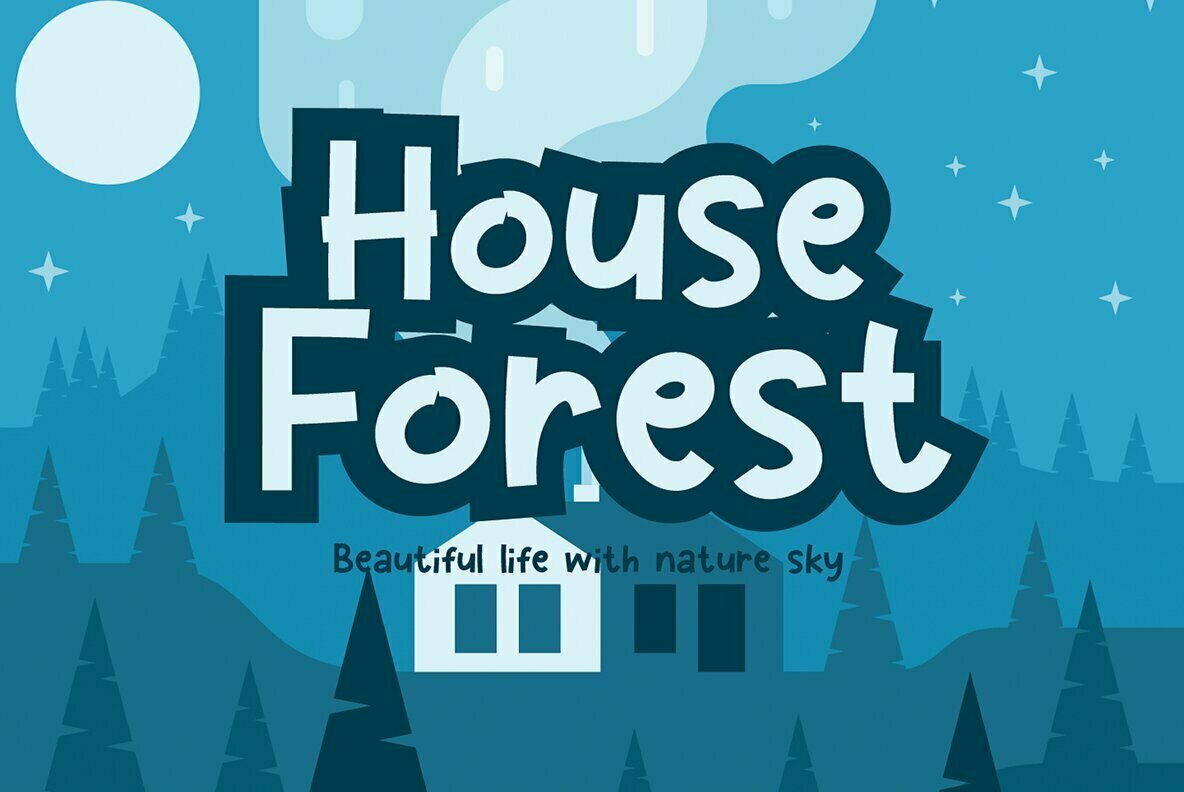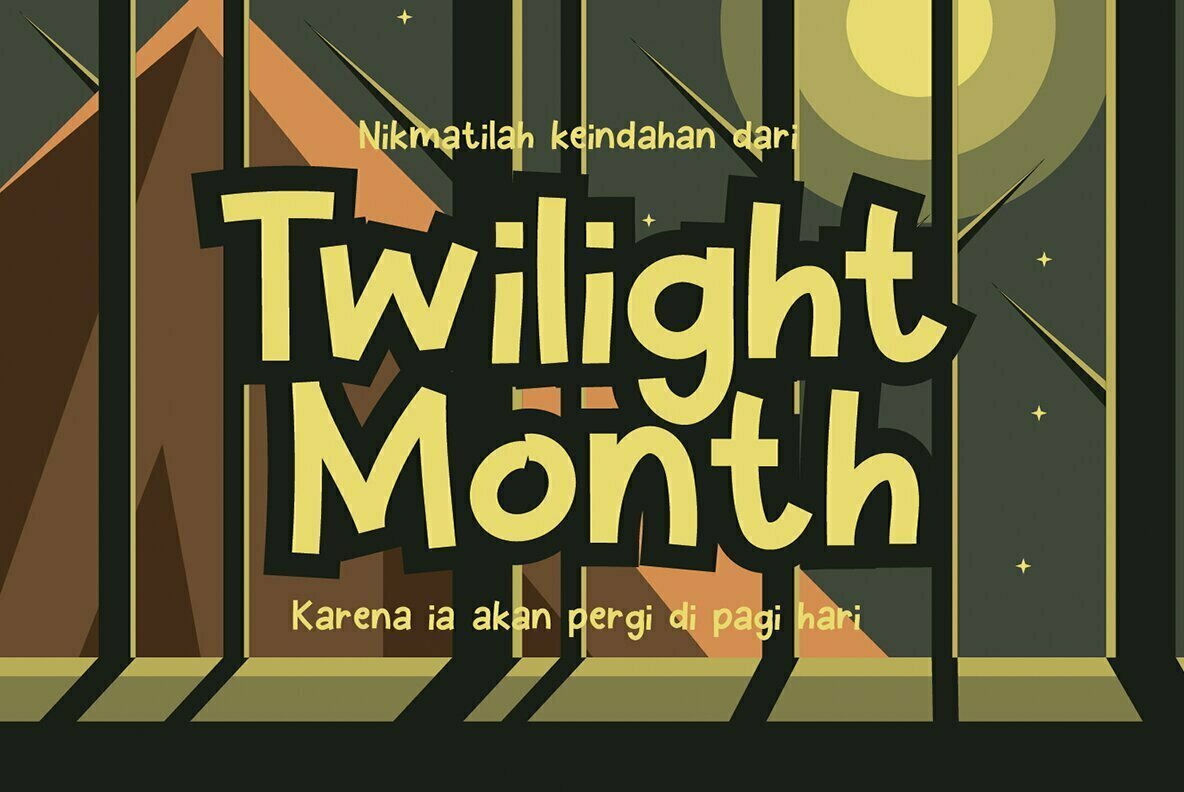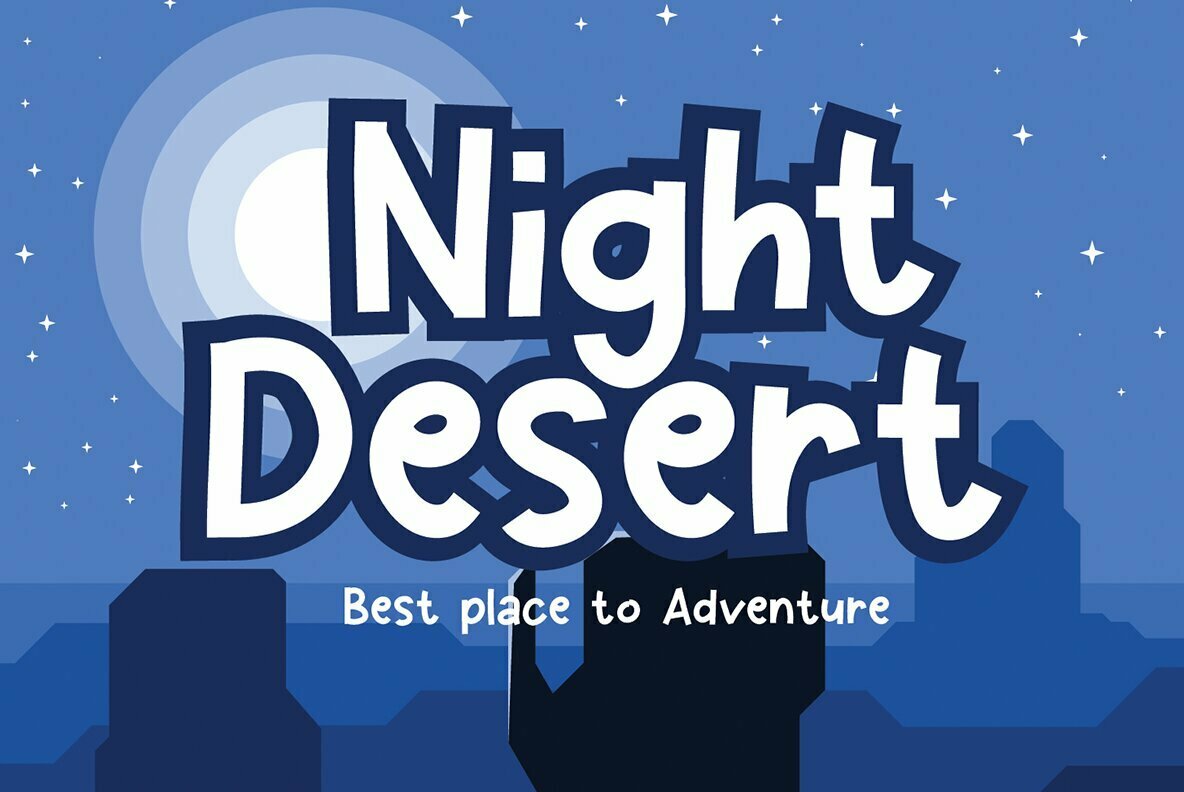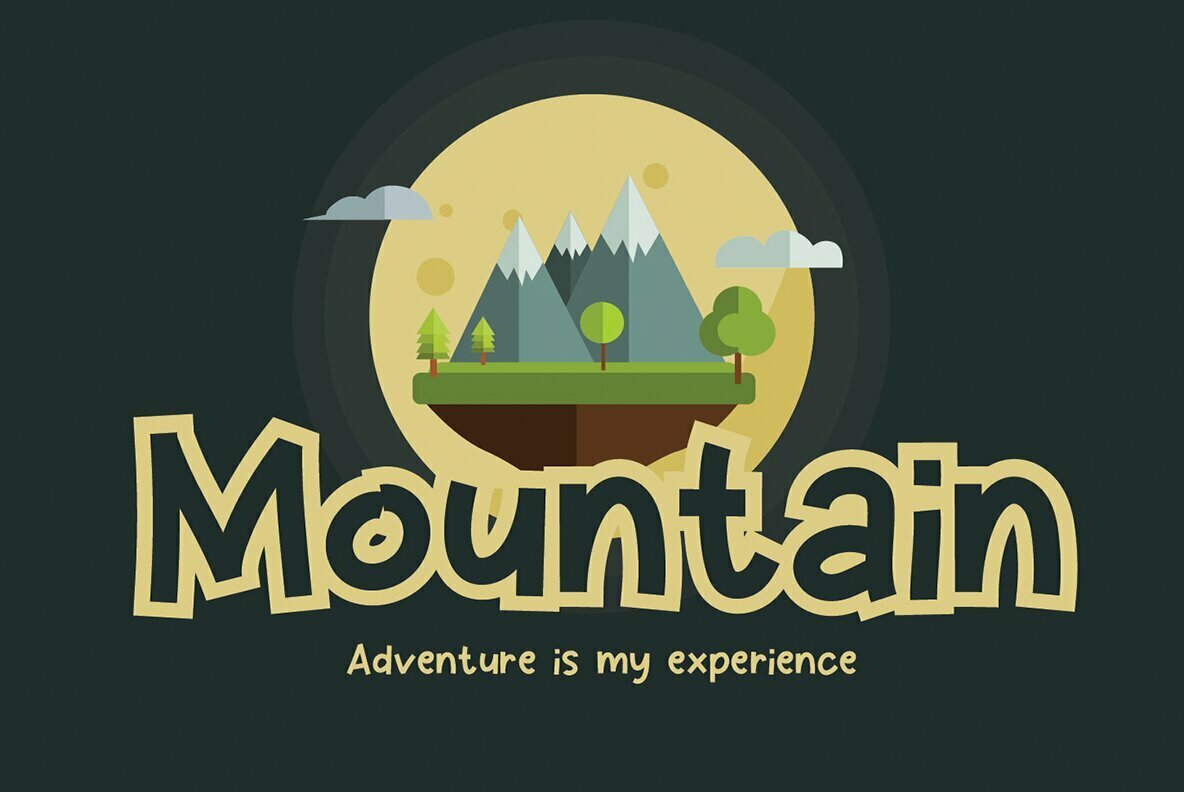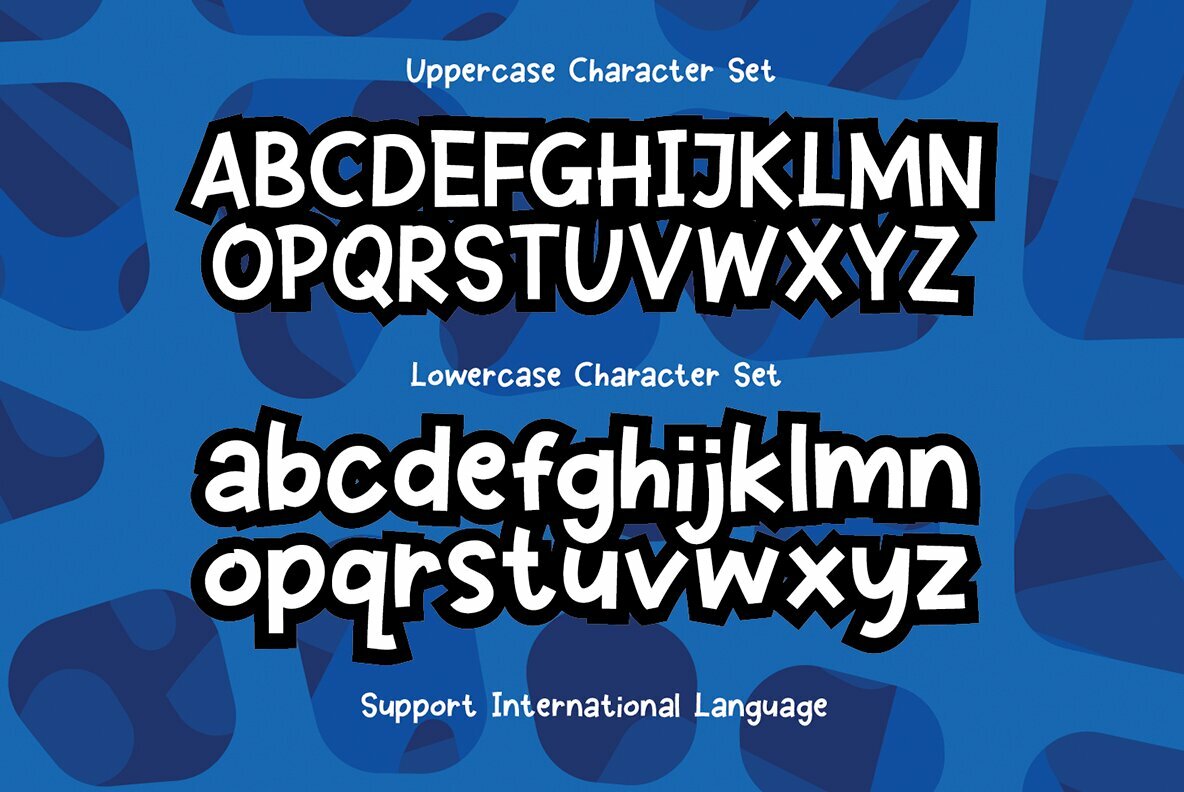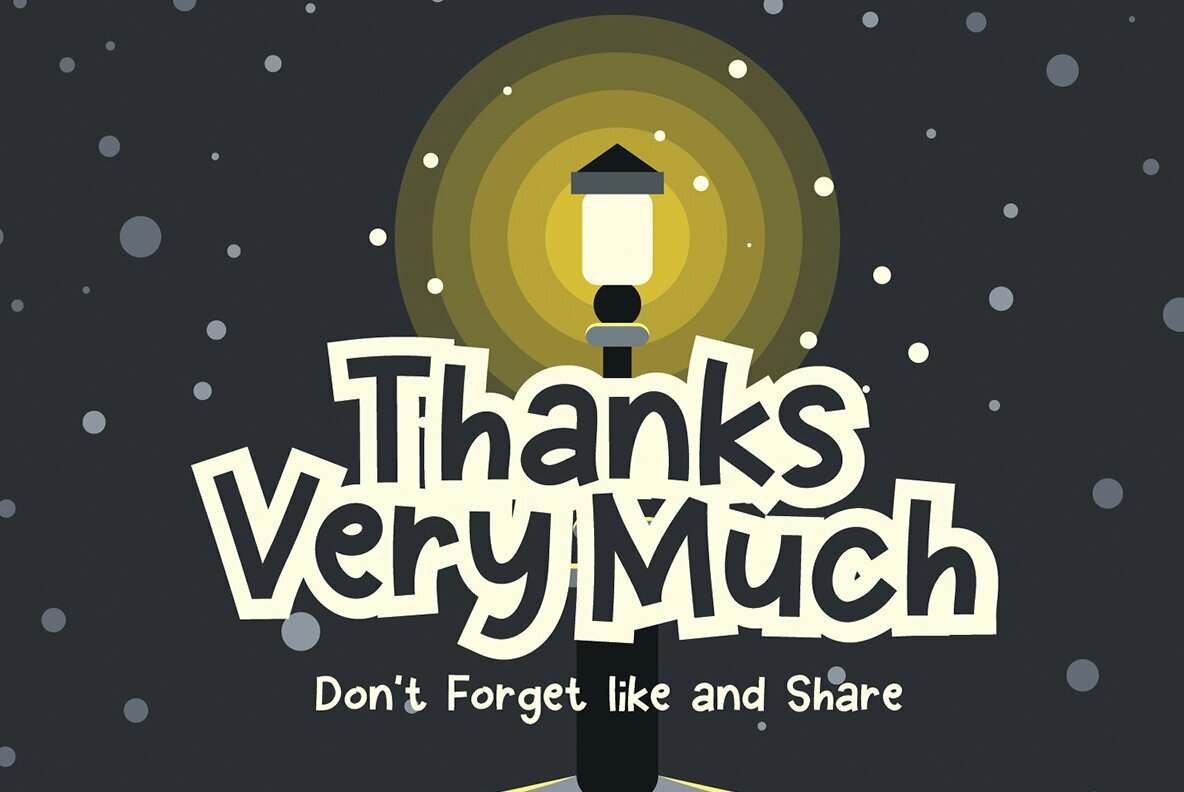
Secret Thief Font
Secret Thief
Secret Thief reintroduces the charm of cute fonts with a distinctive flair. This endearing typeface is crafted to infuse a whimsical touch into your creative projects. Its versatile nature makes it an ideal choice for logos, name cards, magazine layouts, invitations, headers, and even large-scale artwork. Enjoy the playful yet sophisticated appeal it adds to any design.Secret Thief: A Playful Sans Serif